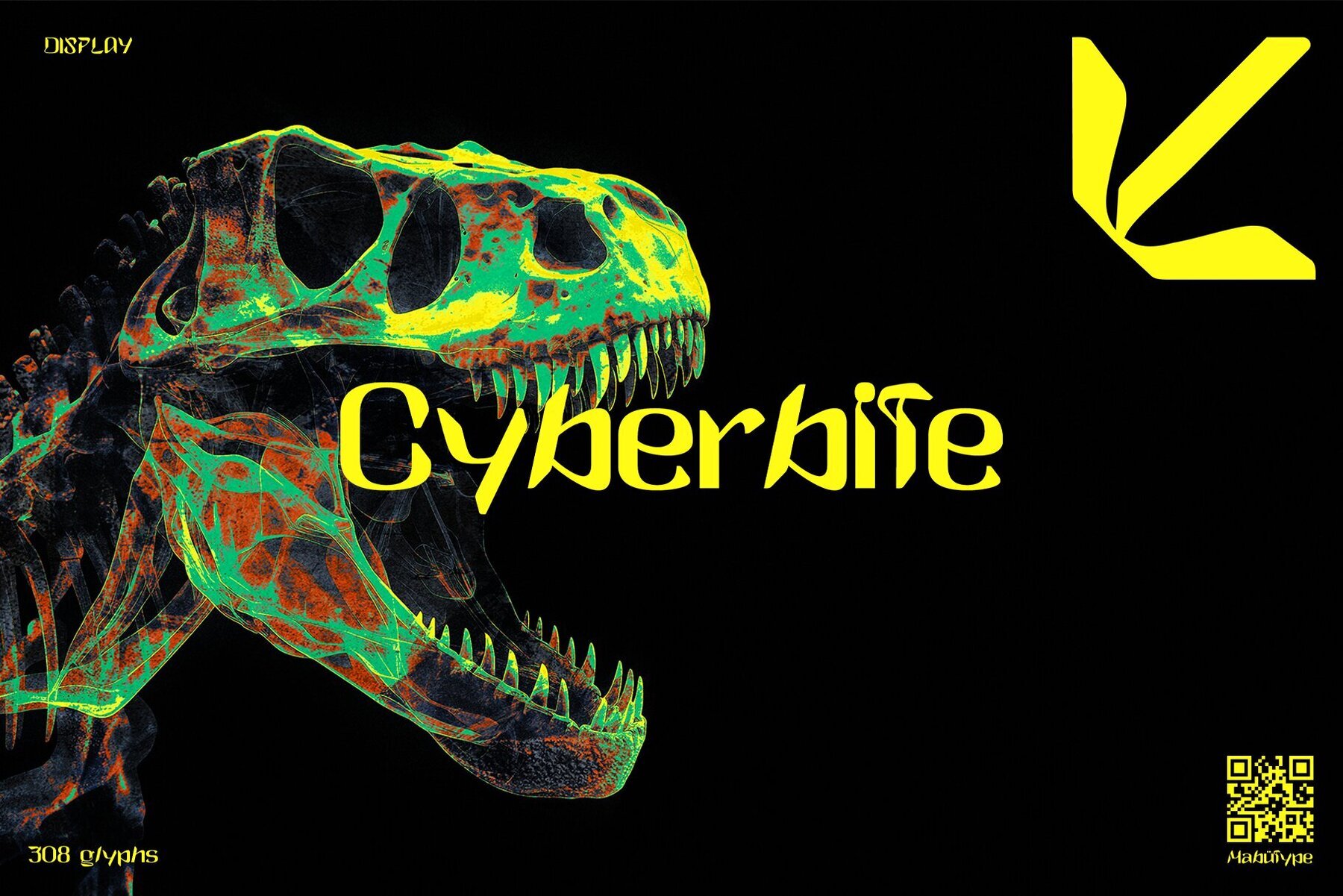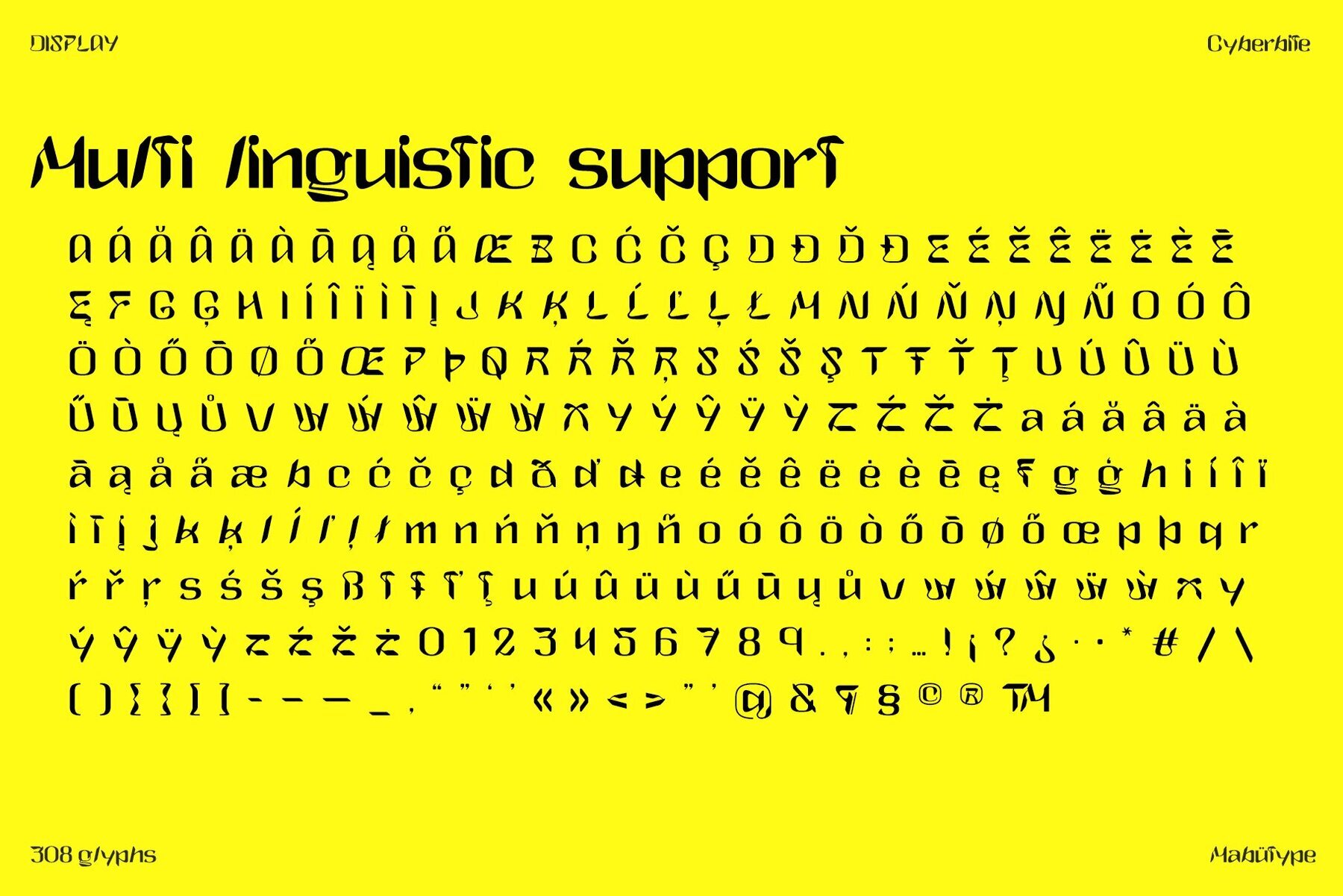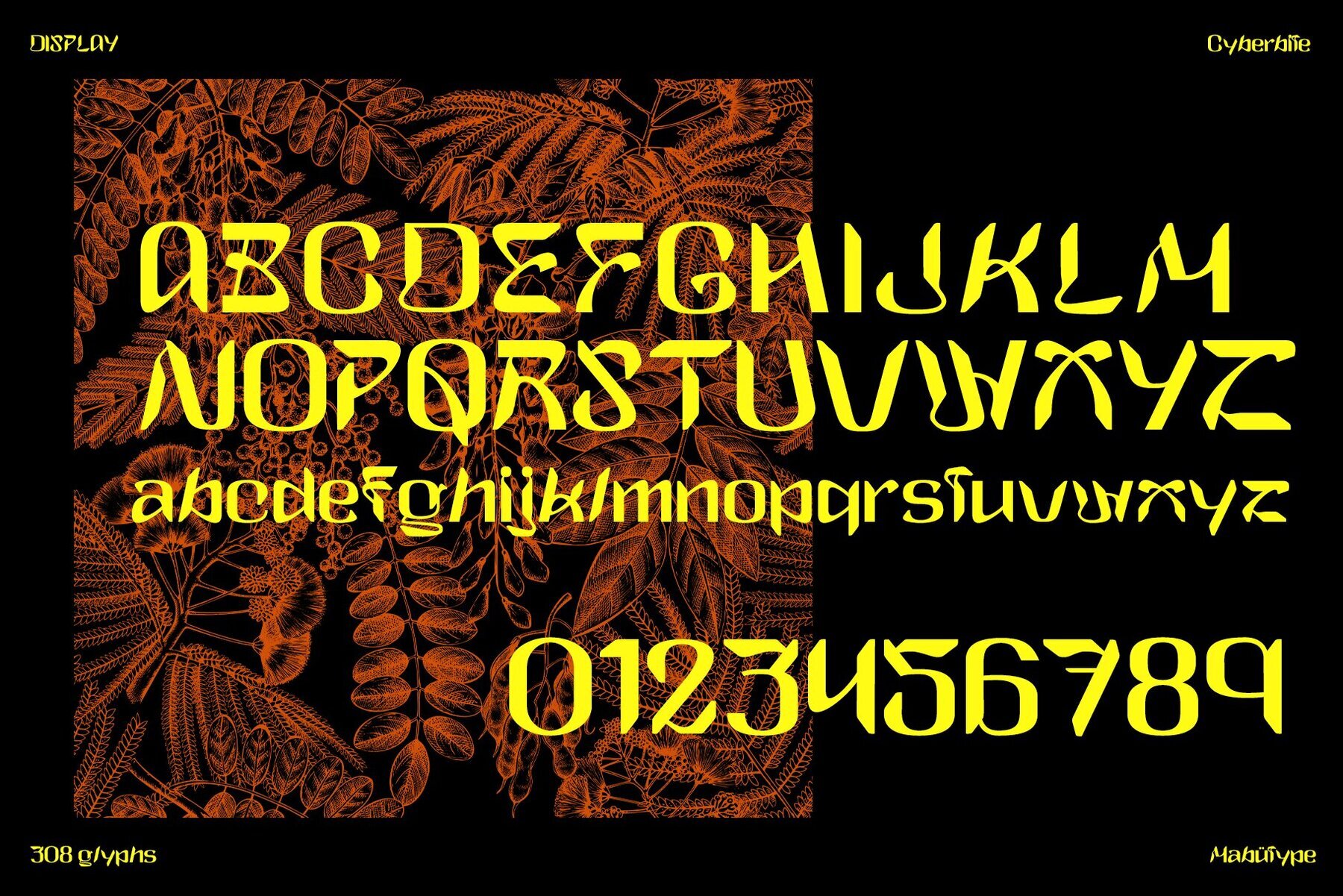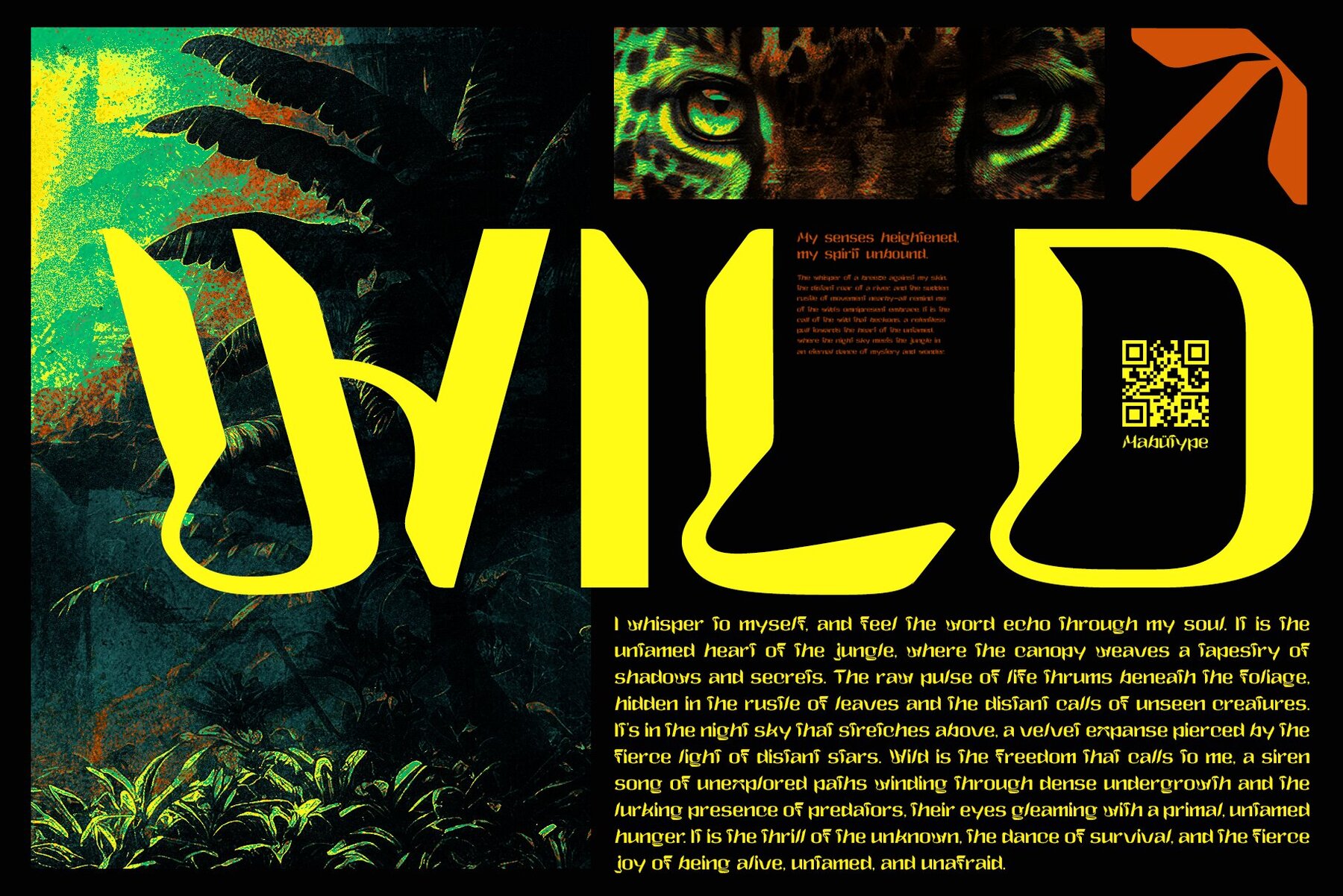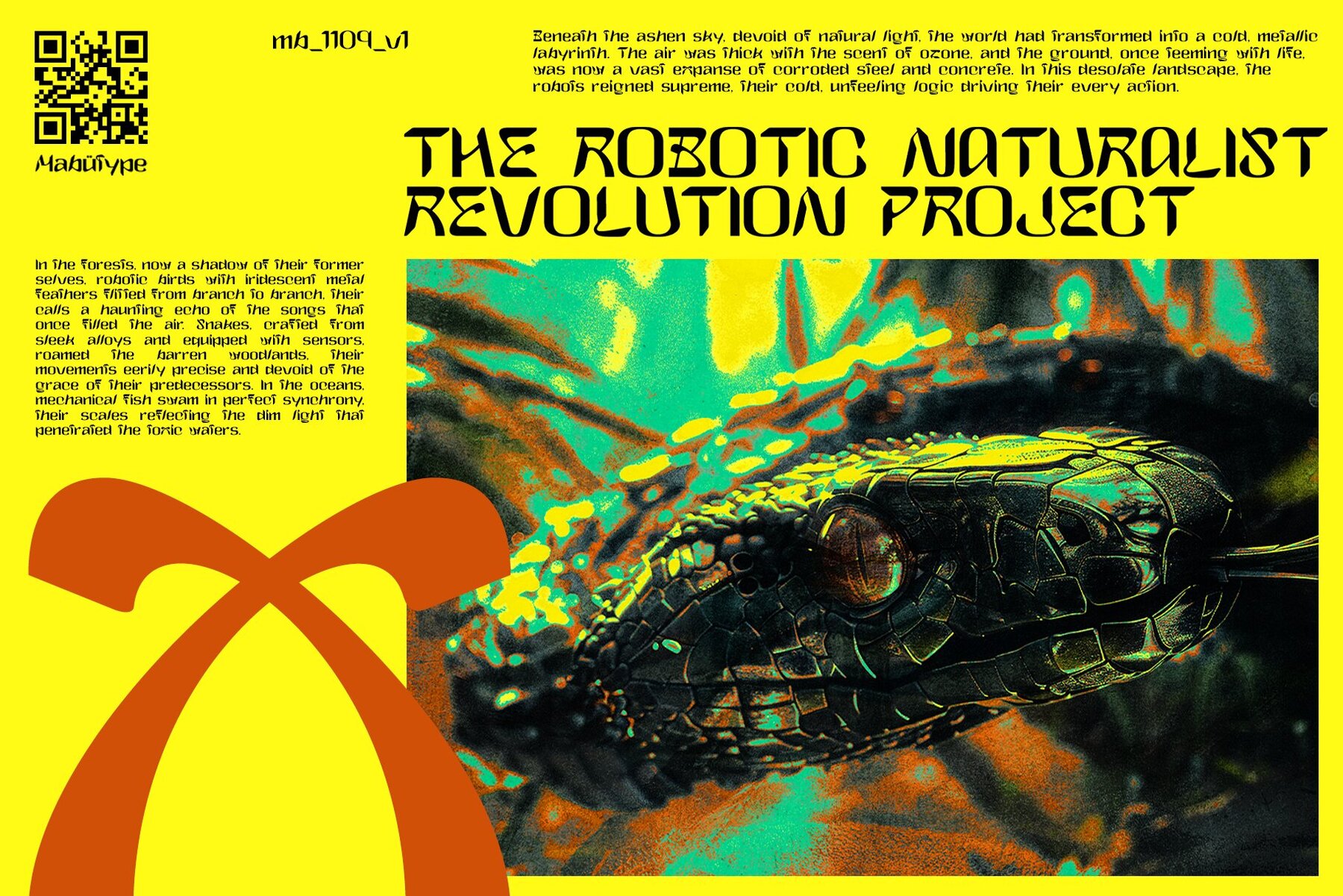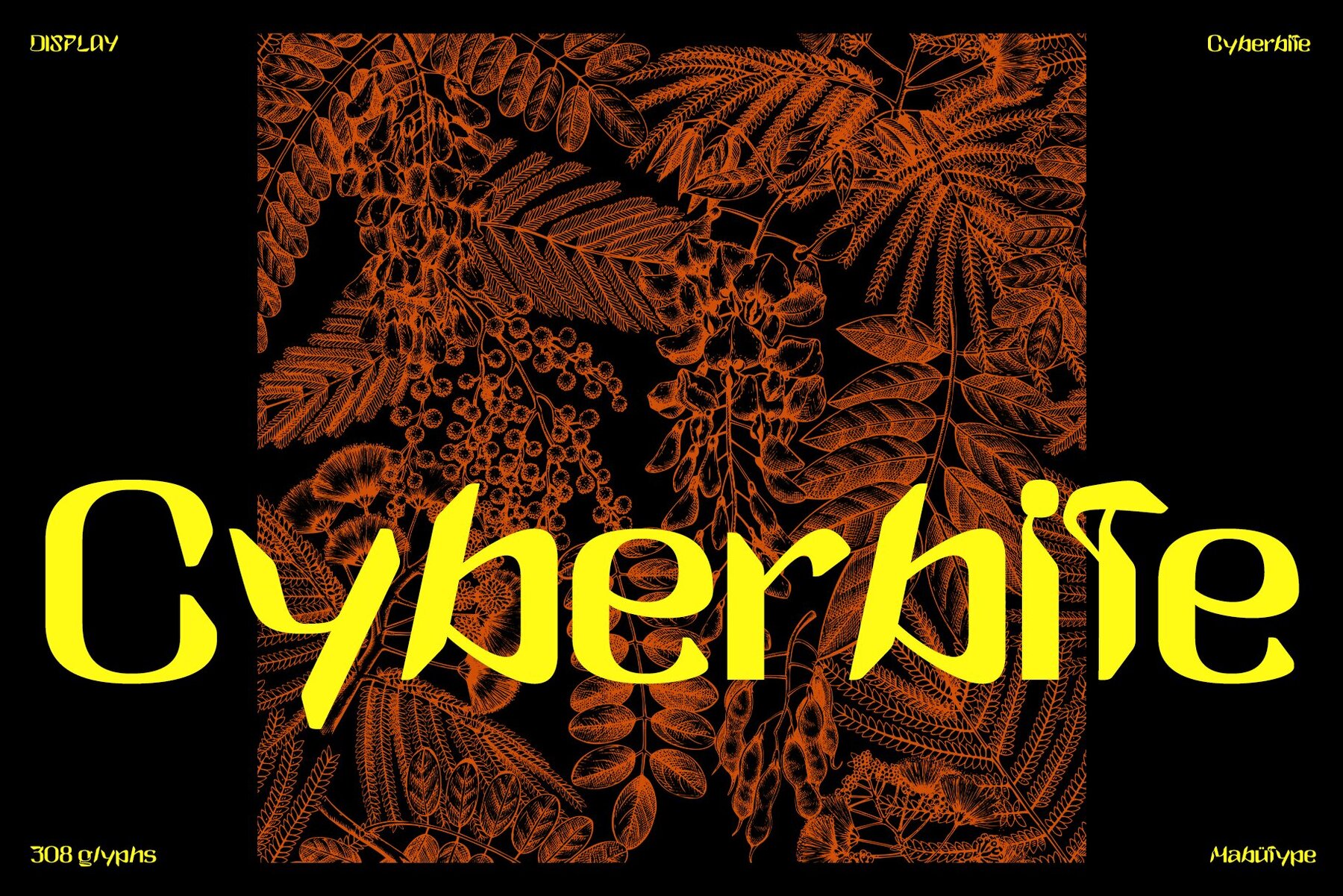
Cyberbite Font
Cyberbite Display
Cyberbite is not your usual display font. Created with biotechnological aspects in mind, this font will transform your project and bring a futuristic yet organic aesthetic.